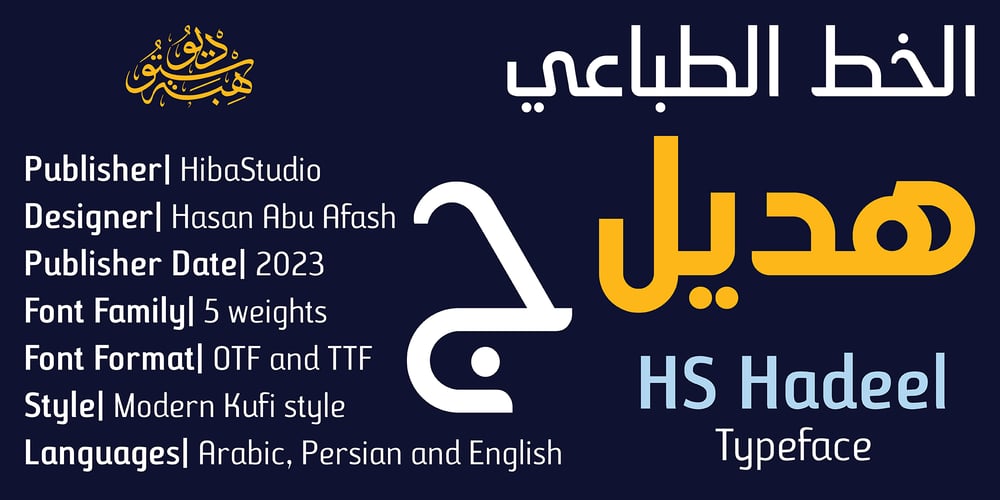
HS Hadeel
HS Hadeel font
HS Hadeel Font Family was designed by Hasan Abu Afash and published by Hiba Studio. HS Hadeel contains 5 styles and family package options. HS Hadeel is a versatile display typeface designed for use in titles and graphic projects that require both Arabic, Persian and English characters. It draws inspiration from the modern kufi style and boasts a unique blend of sharp and curved lines that lend a beautiful and geometric structure to each character. The sharp endings at the bottom of each character add an additional aesthetic touch. With five weights available, ranging from Light to Black, HS Hadeel offers a diverse range of options for designers seeking to elevate their Arabic typography. Overall, HS Hadeel is a great choice for those seeking a visually striking and flexible typeface for their projects.